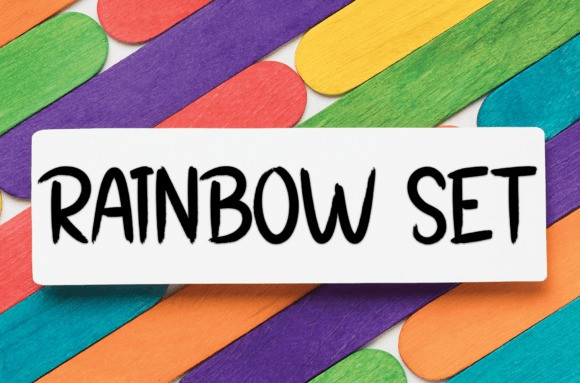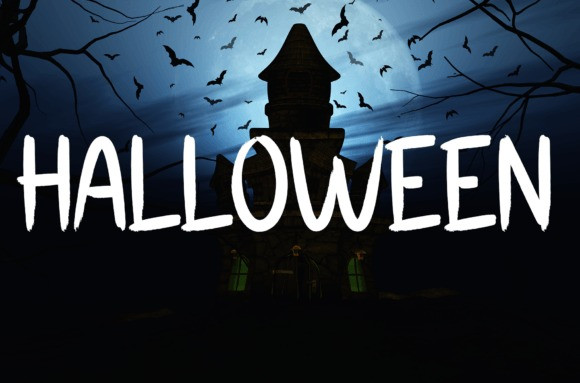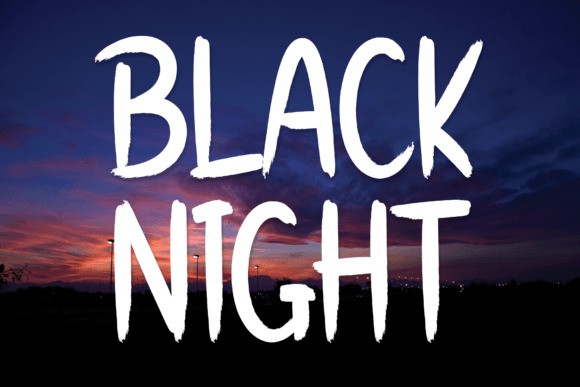
Black Night Font
Black Night Font is a cool and friendly handwritten display font. Creative and versatile, this font is ideal for writing wedding invitations, cards, or any other design that might need a fun touch!